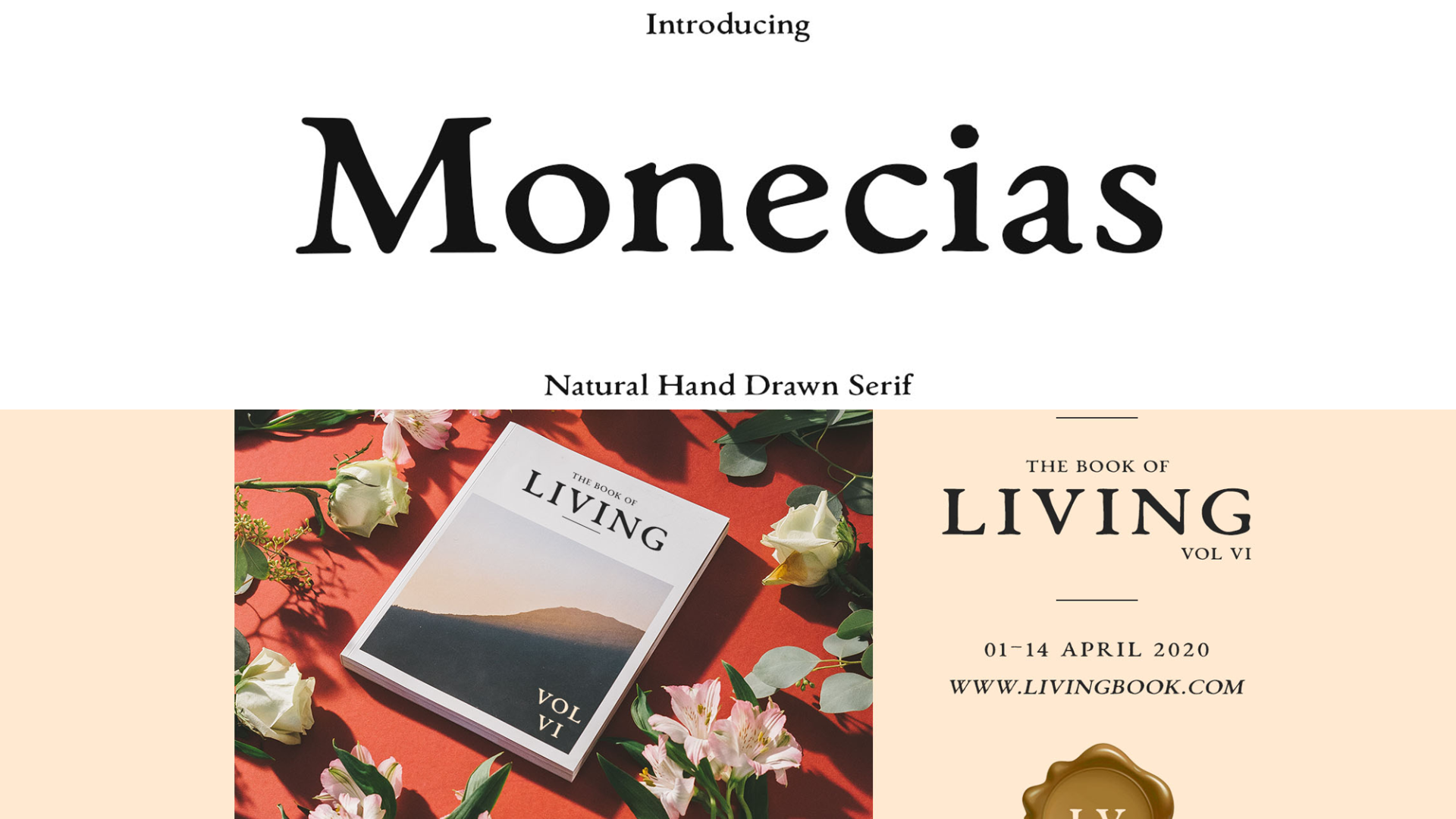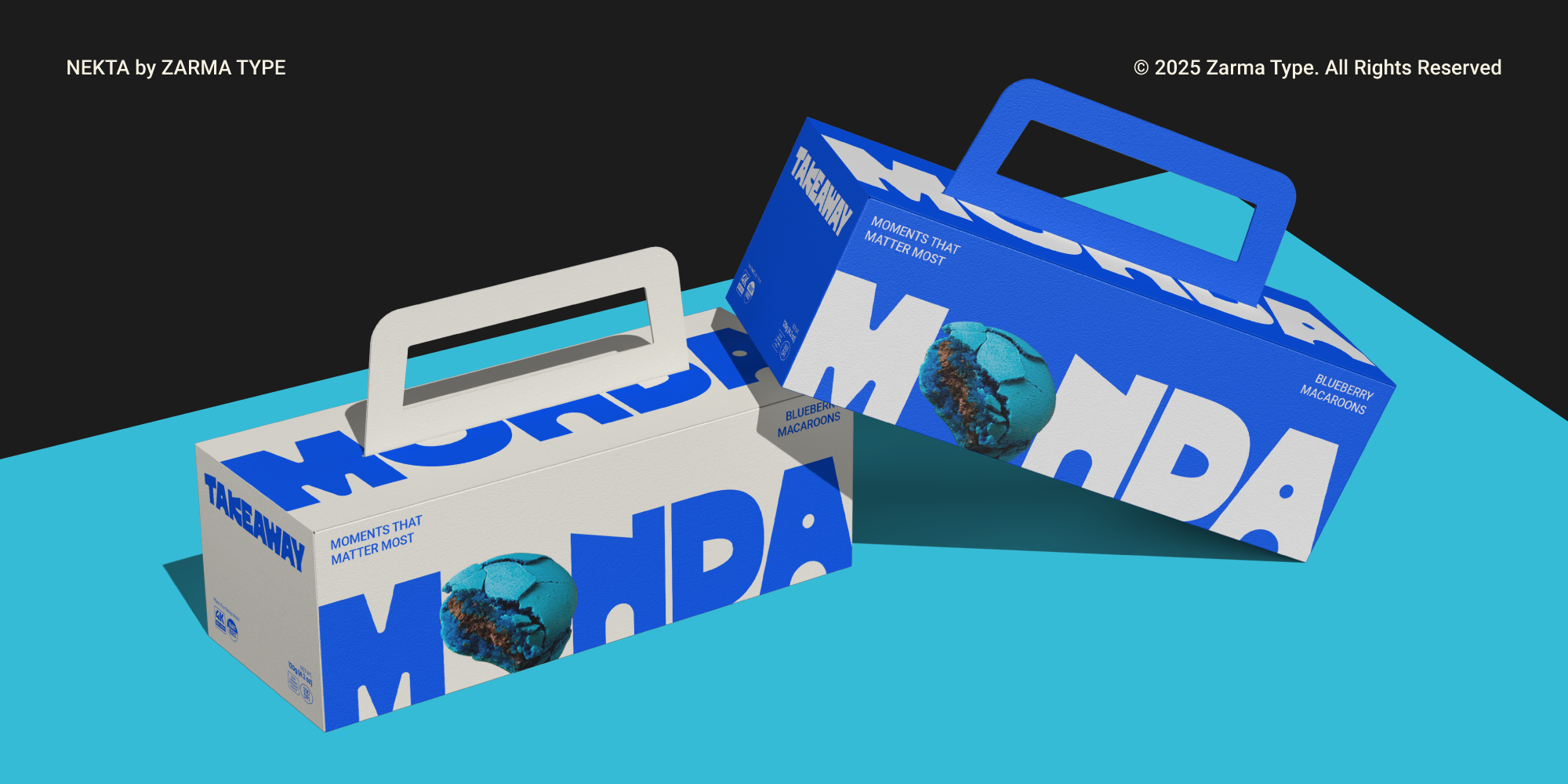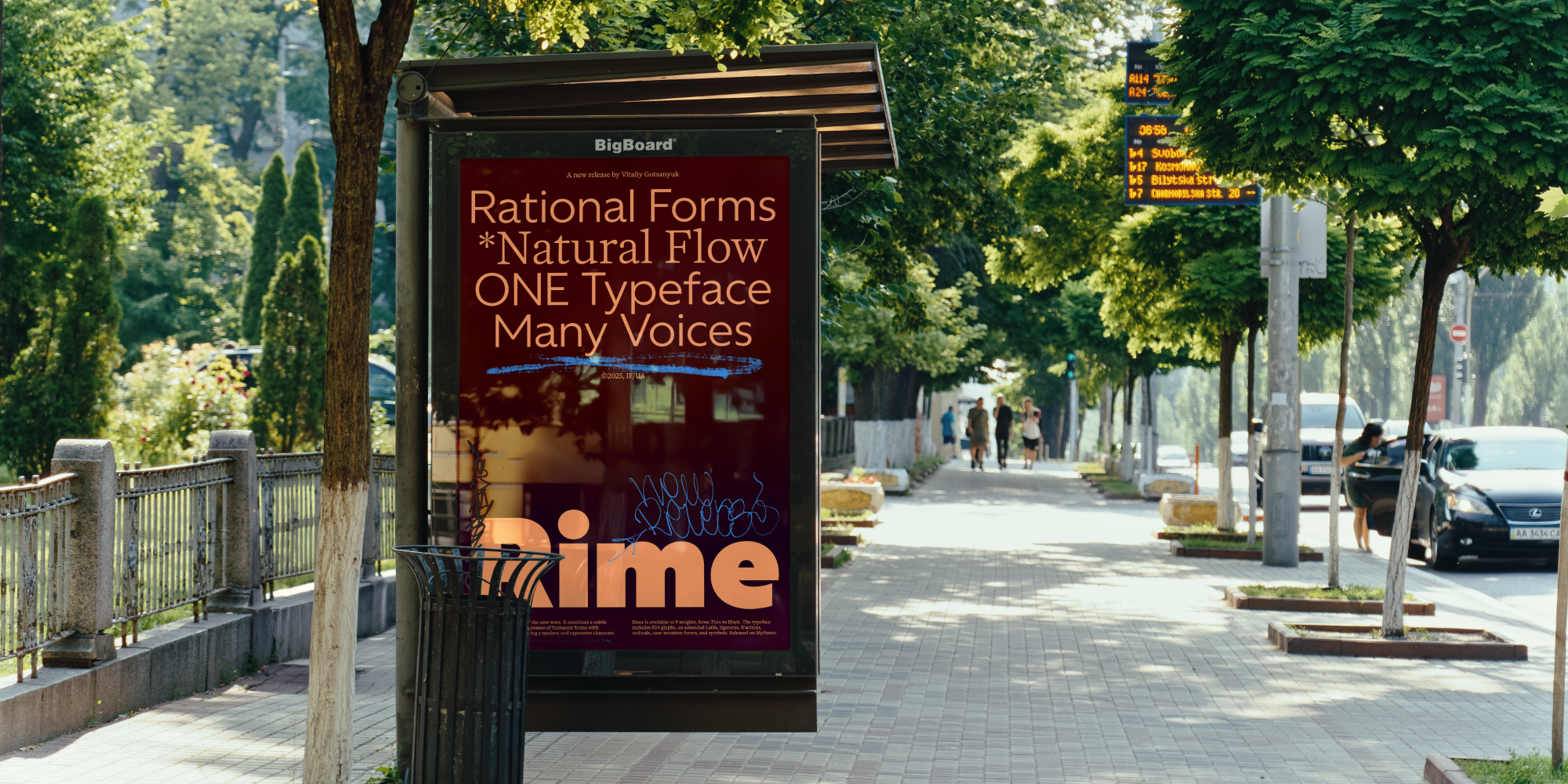
Introducing Monecias a natural hand drawn serif font. It can be used to create almost all types of design projects like print materials. Just use your imagination and some graphic design set in Extras, your project will become more alive and look great than ever with Monecias – Natural Hand Drawn Serif. You want to make a greeting card or a package design, or even a brand identity, craft design, any DIY project, book title, wedding font, pop vintage design, retro design or any purpose to make your art / design project look pretty and trendy? Feel free to play with this fonts! 2 fonts for $20 | |
| | Glimorin by Vadova Std | A sans serif font that is ideal for impactful statements, signage, branding, and editorial titles... | | | | |
| | Nekta by Azzam Ridhamalik | From sports tickets to beach-side labels, Nekta keeps typography consistent across sizes... | | | | |
| | Rime by Vitaliy Gotsanyuk | A workhorse that is based on maintaining geometric structure with a subtle humanist inclination... | | | | |
| | Back Wild Graffiti by Sipanji21 | A bold and chubby graffiti font that includes swash characters. Fonts with these attributes generally... | | | | |